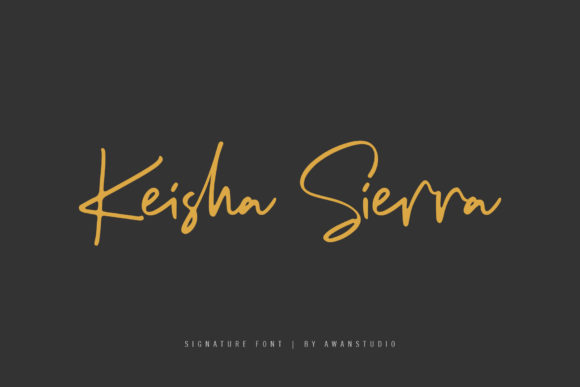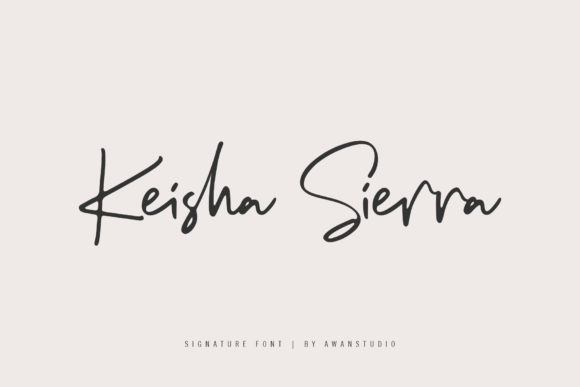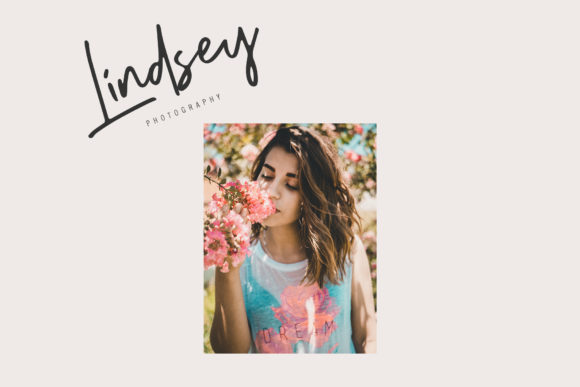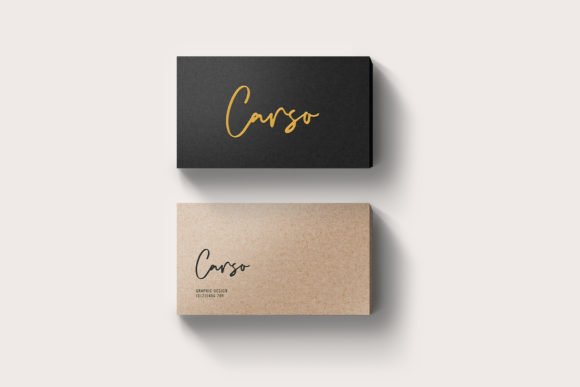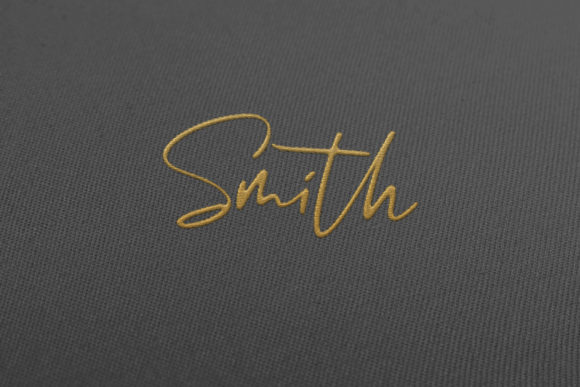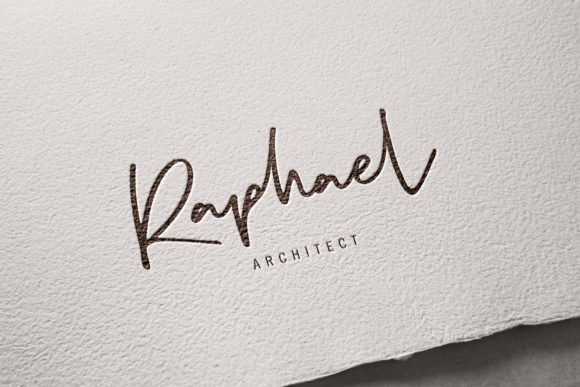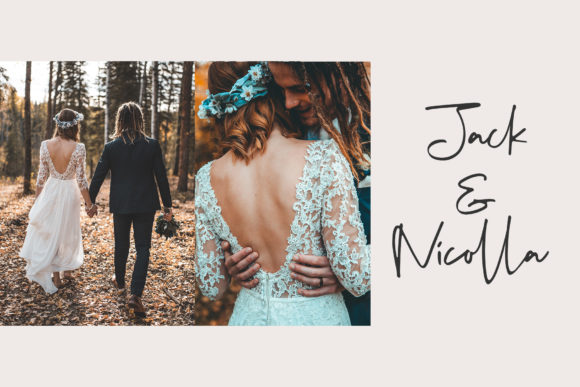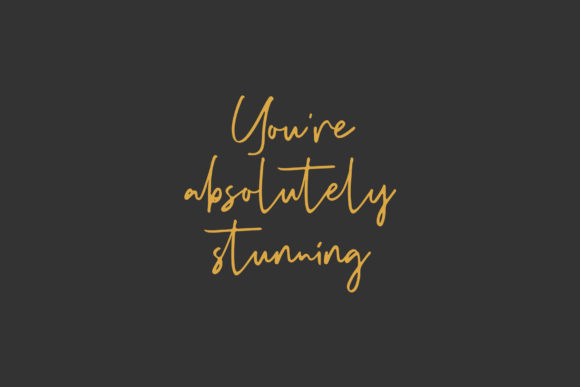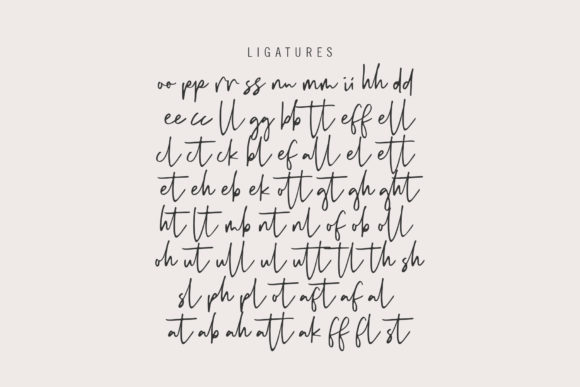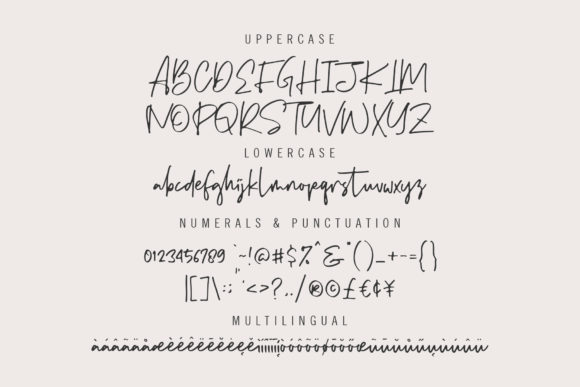
Keisha Sierra Font
About Keisha Sierra Font
Keisha Sierra is a stunning handwritten font with an incredibly authentic feel. Use it to add a contemporary charm to any creative project!